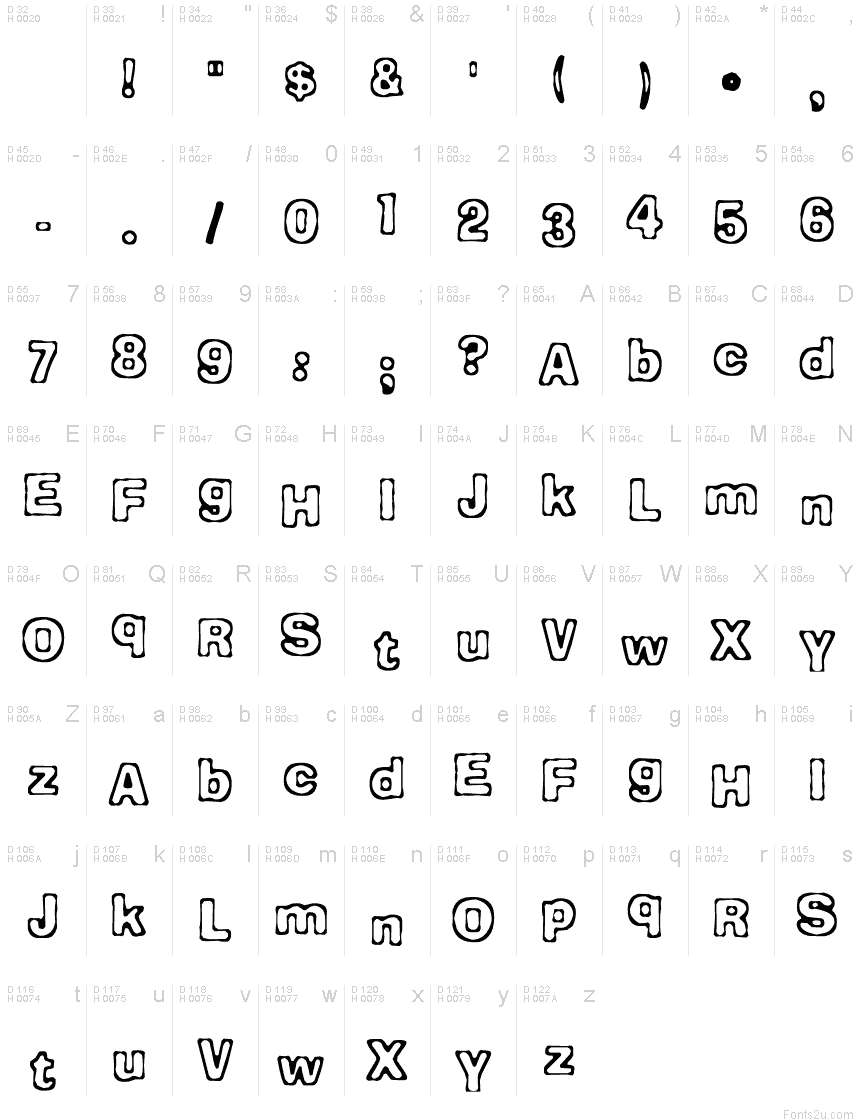
Comicate font is a free eroded display font with chunky, hand-drawn letters that feel like marker outlines filled in with a lively wobble. The rough bites and uneven rhythm give it the scrappy energy of comic panels and doodled sound effects, so even a short word lands with a grin.
Using Comicate works beautifully for comic covers, kids’ party invites, sticker packs, YouTube thumbnails, classroom posters, playful merch, and indie game titles. Keep it fairly large so the textured edges stay crisp, and pair this free font with a clean sans serif when you need supporting text that doesn’t steal the joke.